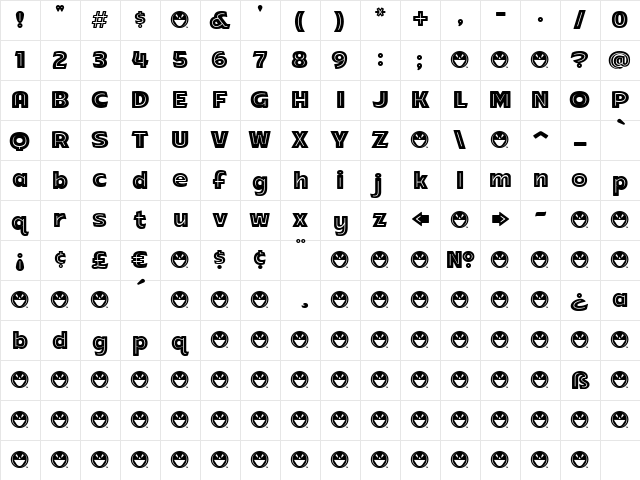
ARB-218 Neon Blunt MAR-50 Regular
Design Context for ARB-218 Neon Blunt MAR-50 Typeface
ARB-218 Neon Blunt MAR-50 has a distinctly futuristic character, with geometric precision and clean angles that feel at home in technology, gaming, and sci-fi contexts.